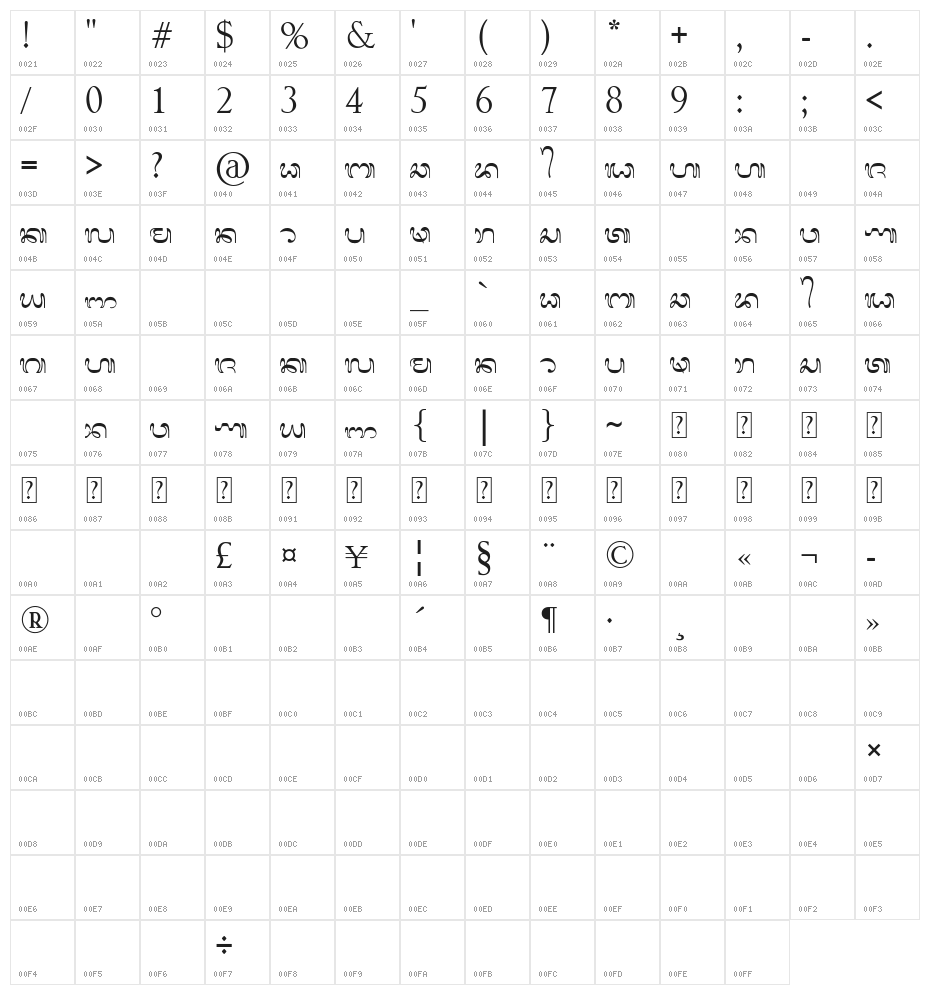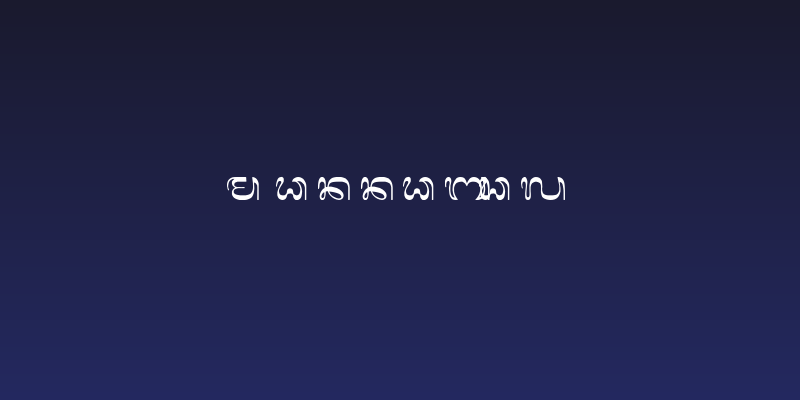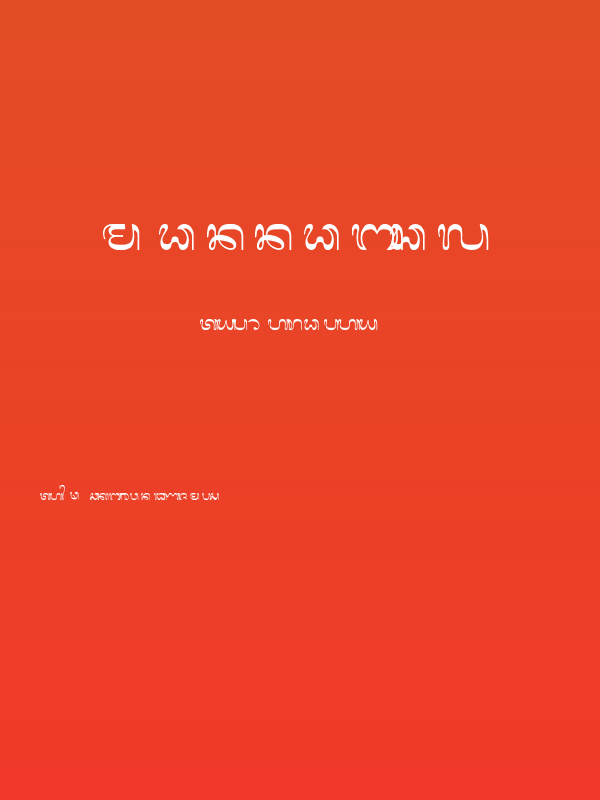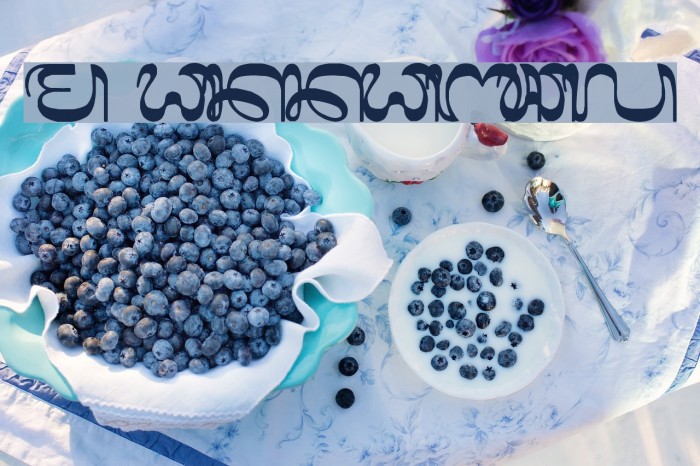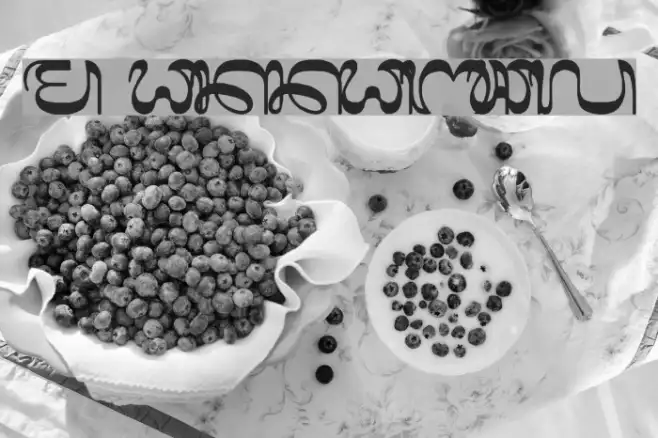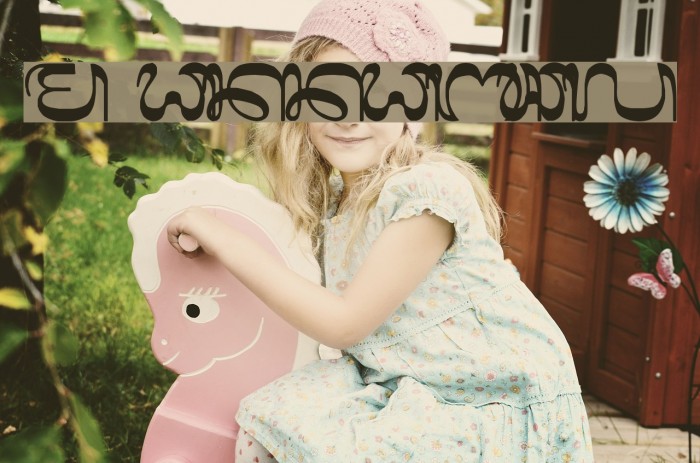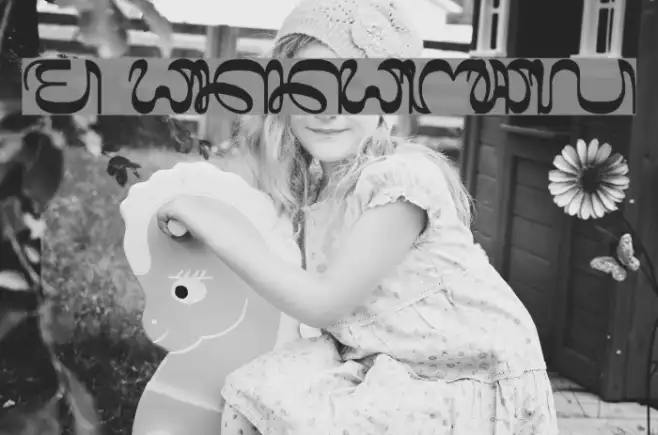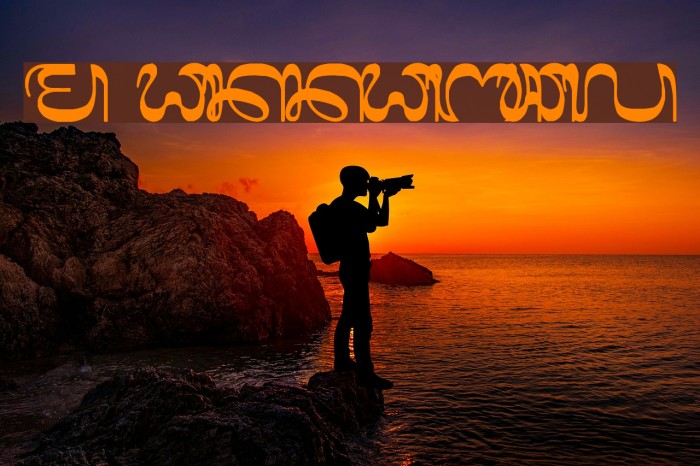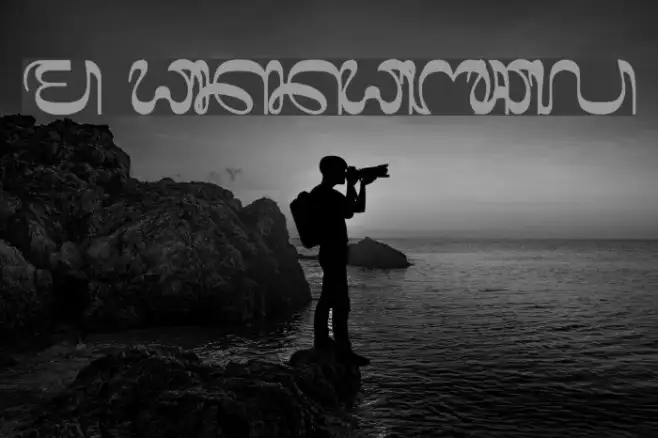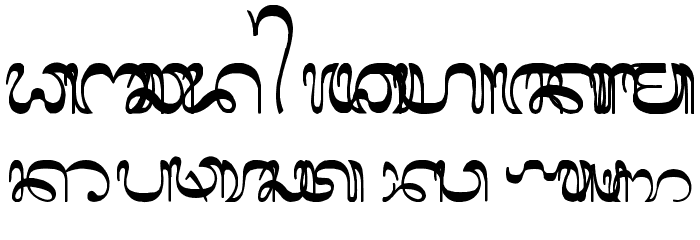
mannabali Font
mannabali Description
This font features a unique blend of traditional and modern elements, characterized by its elegant and flowing script style. The uppercase letters are intricately designed with a calligraphic flair, while the lowercase letters maintain a consistent and harmonious flow. The numerals are clear and distinct, offering a classic touch that complements the overall design. Special characters are thoughtfully integrated, enhancing the font's versatility. The font's aesthetic is both sophisticated and approachable, making it suitable for a variety of design applications.